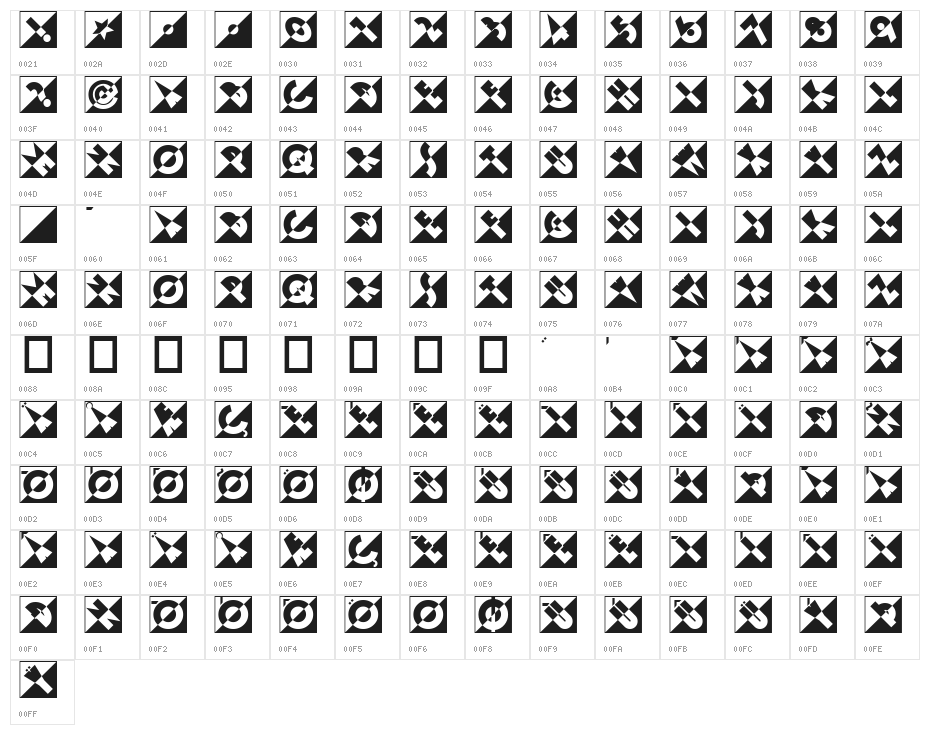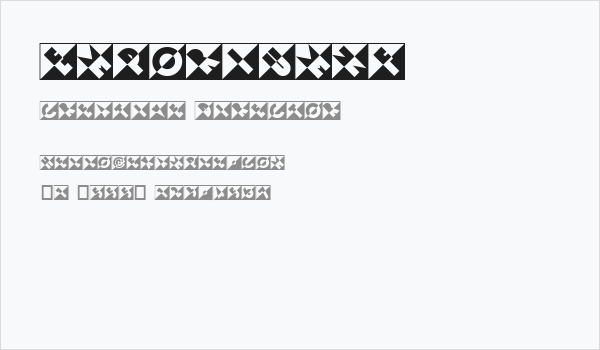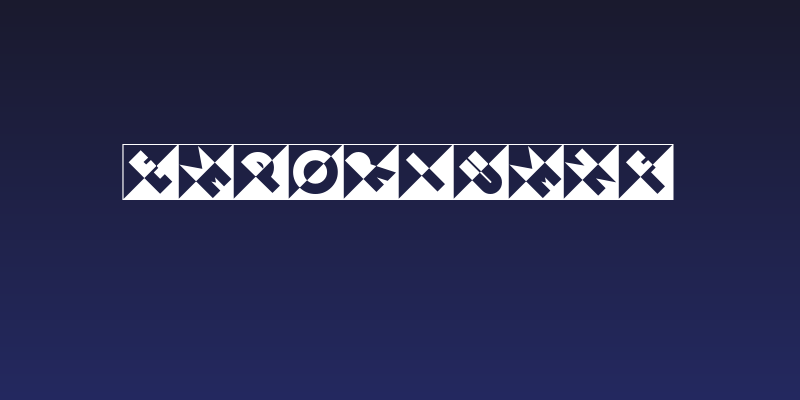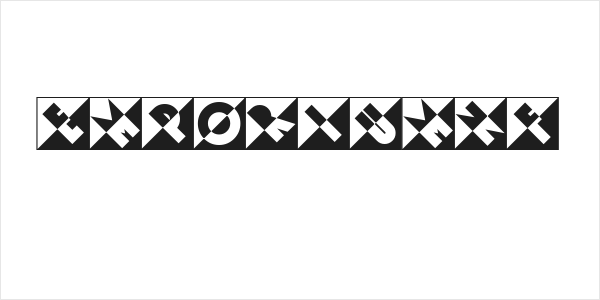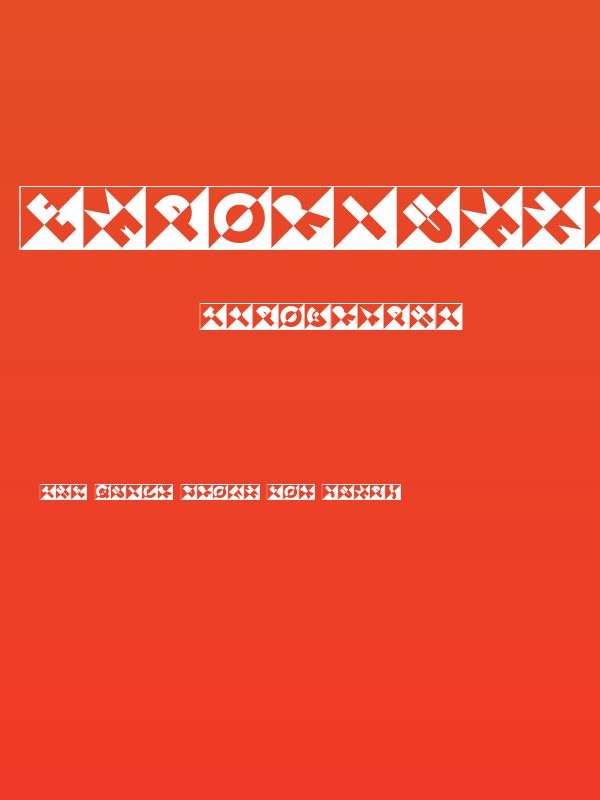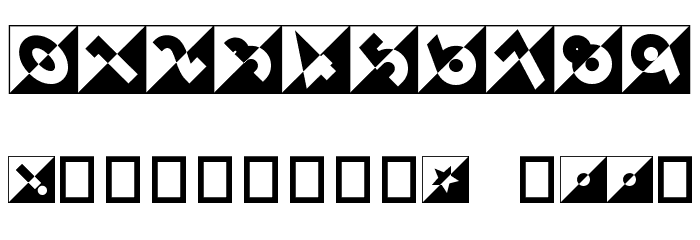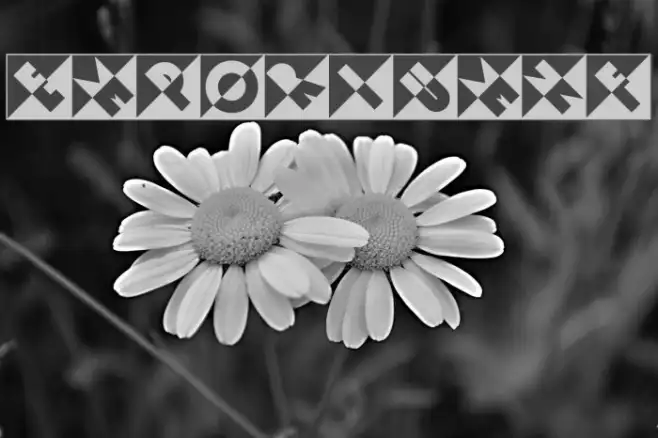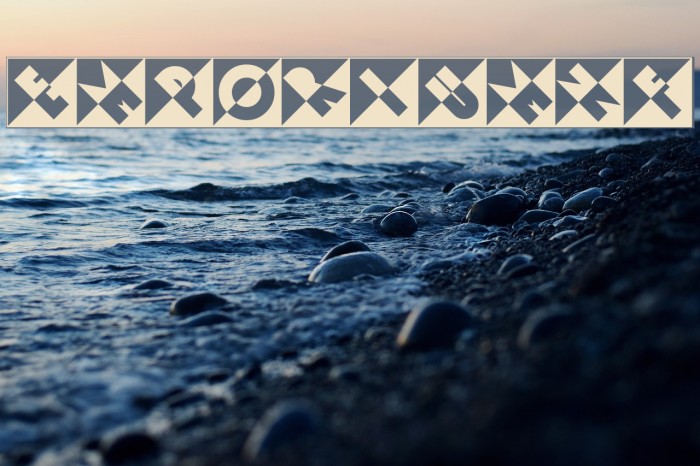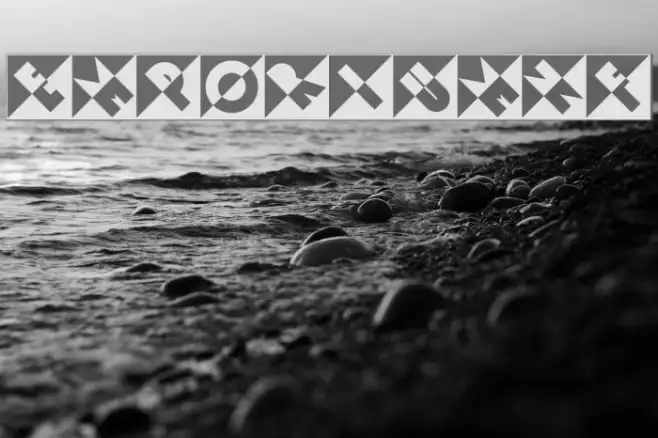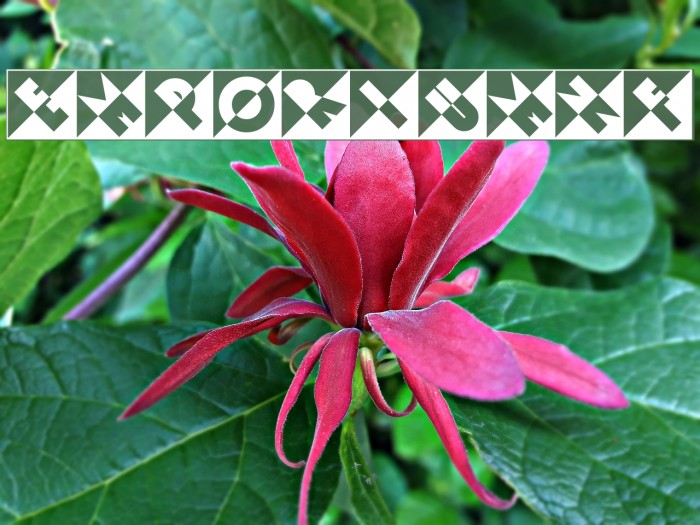
EmporiumNF Font
EmporiumNF Description
This font features a highly decorative and geometric style, characterized by bold, angular shapes and intricate patterns within each character. The letters are enclosed within square frames, creating a striking visual effect. The design incorporates a mix of sharp angles and curves, giving it a unique and artistic appearance. The characters are filled with contrasting black and white sections, enhancing their visual impact and making them stand out. This font is ideal for projects that require a bold and eye-catching display, such as posters, logos, and artistic designs.
| Proposed Projects | Ideal for posters, logos, artistic designs, and any project needing a bold visual impact. |